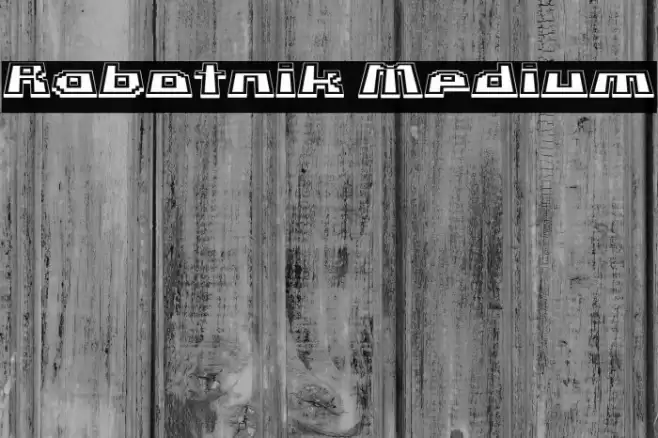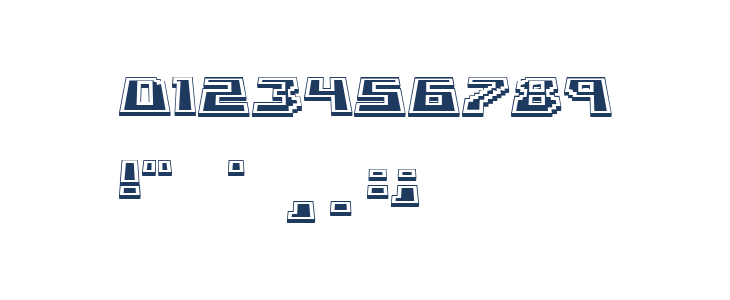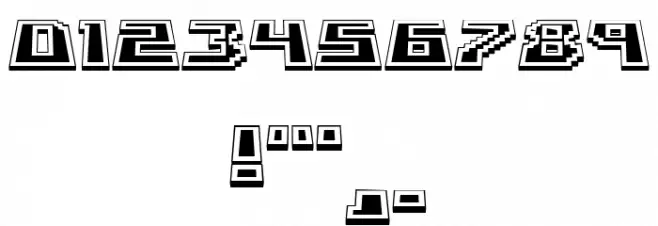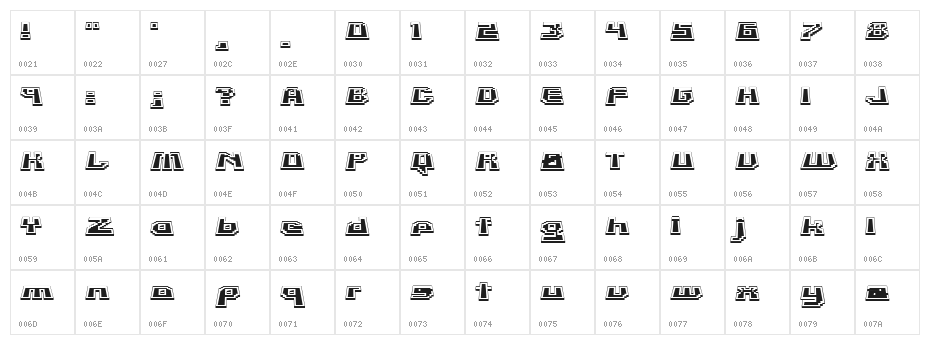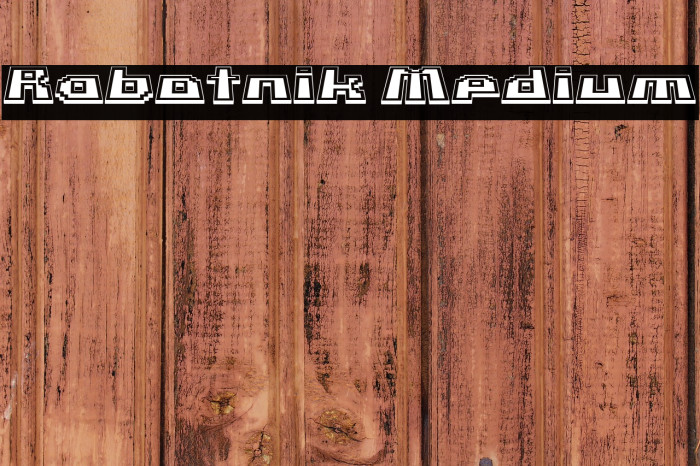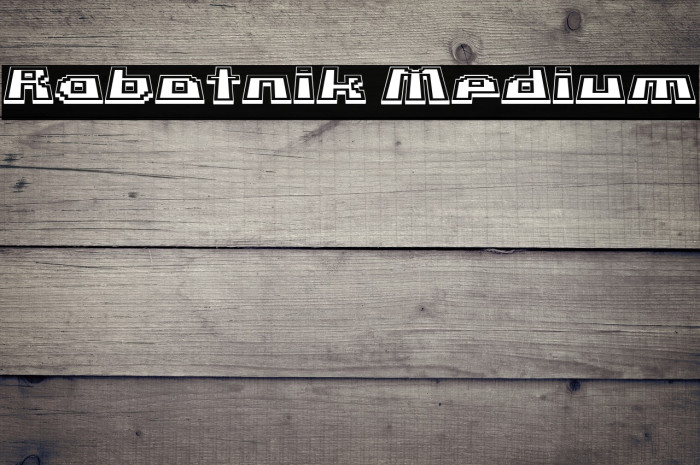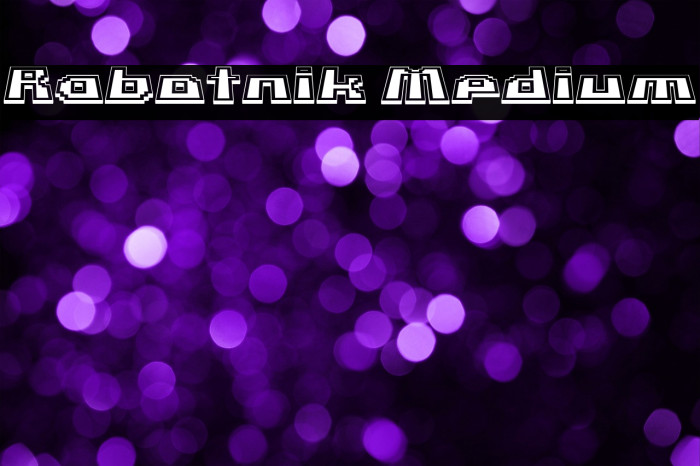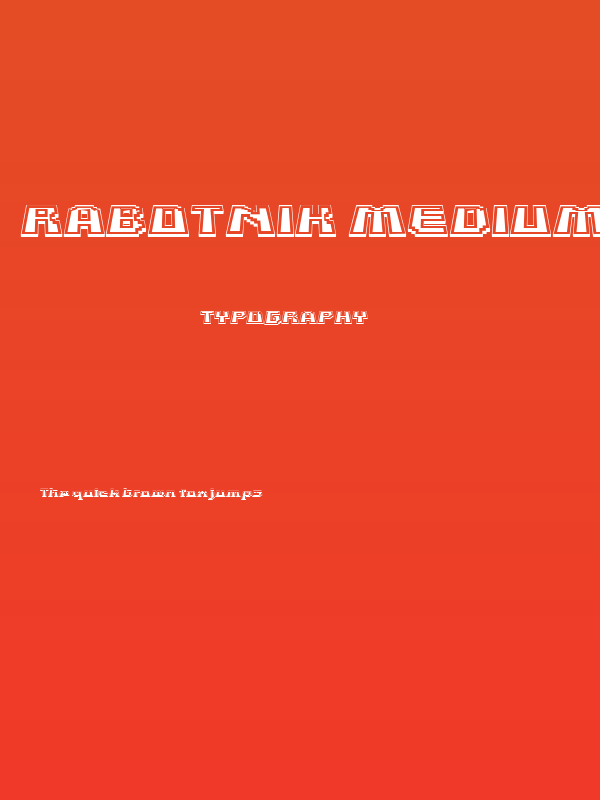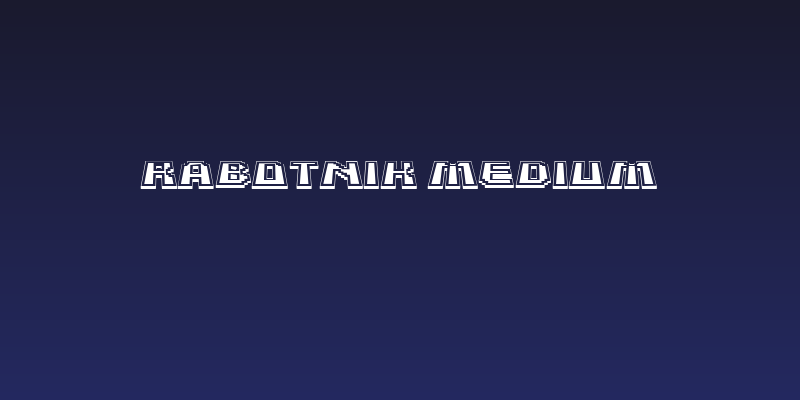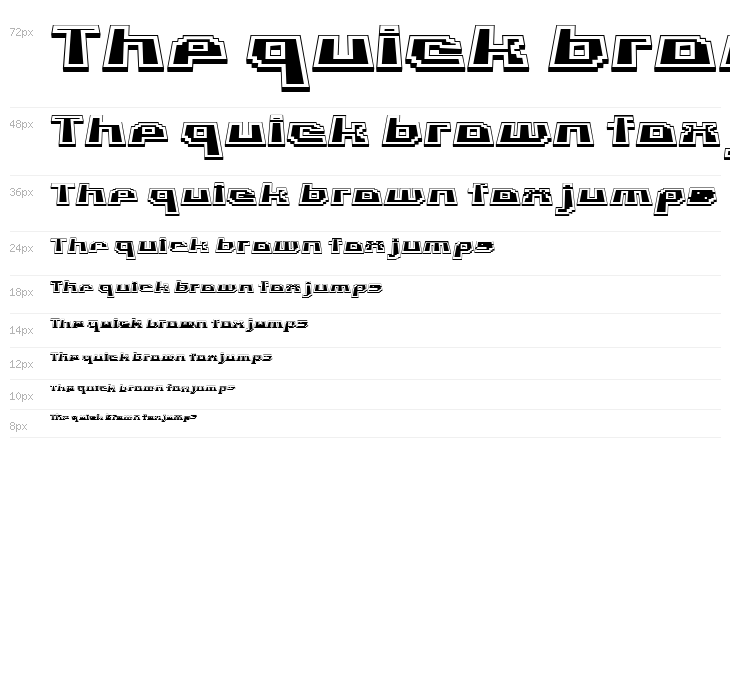
Rabotnik Medium Font
Rabotnik Medium Description
This font features a bold, geometric design with a distinct 3D effect, reminiscent of retro video game graphics. Each character is outlined with a thick black border, giving it a striking and impactful appearance. The letters are blocky and angular, with a consistent width that enhances its digital aesthetic. The uppercase and lowercase letters maintain a uniform style, while the numbers and special characters follow the same design principles, ensuring a cohesive look across all elements. This font's unique style makes it ideal for projects that require a nostalgic or tech-inspired theme.
A bold, geometric font with a retro 3D video game aesthetic from Uncategorized fonts.
- Proposed Projects: Ideal for video game titles, tech-themed posters, retro branding, and digital art projects.
- Overall Style: Retro, Digital